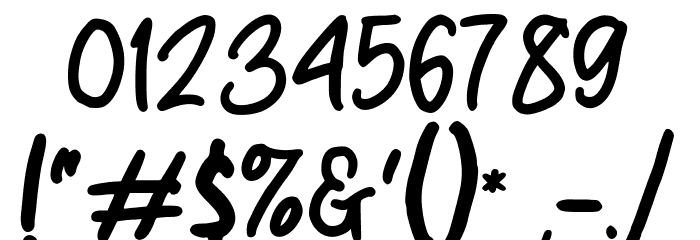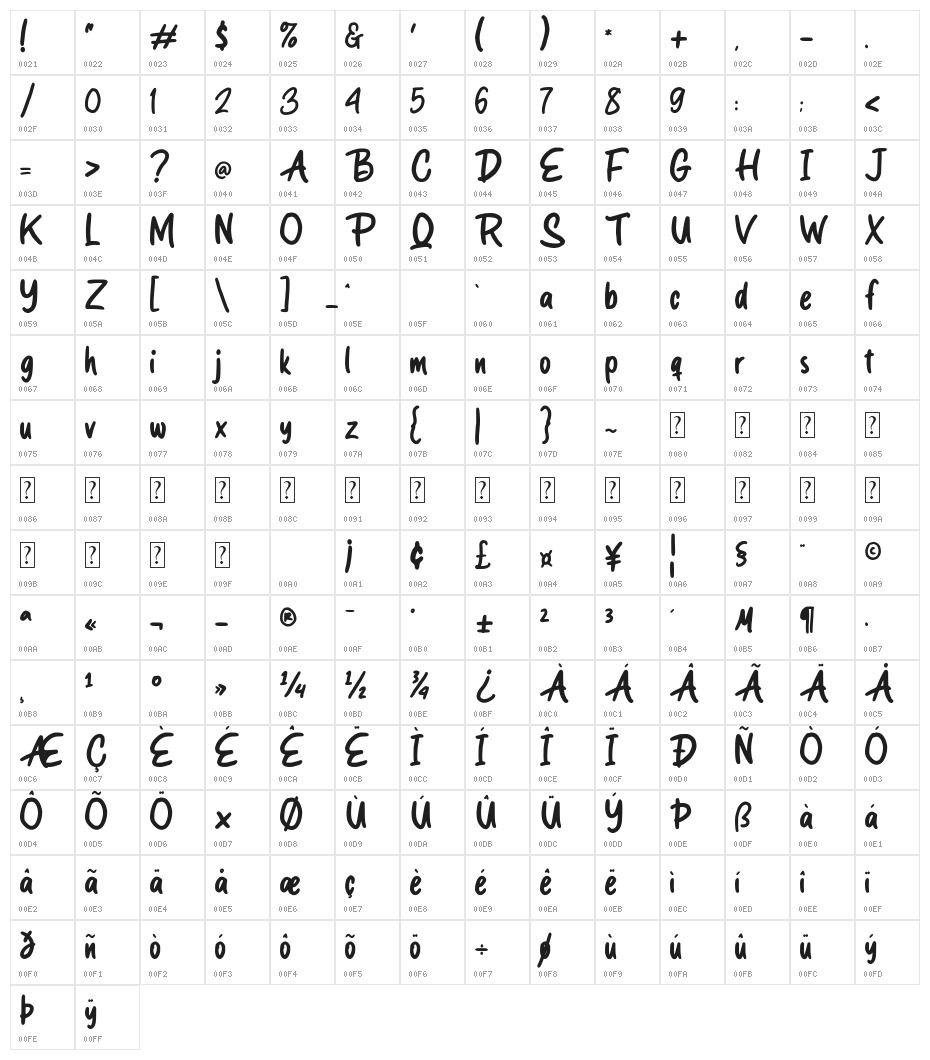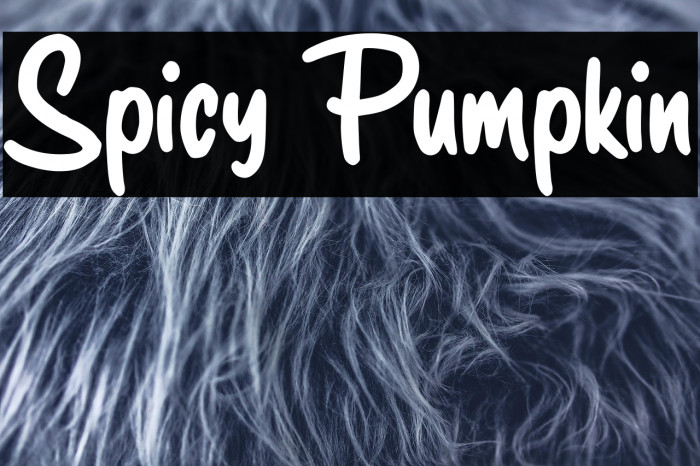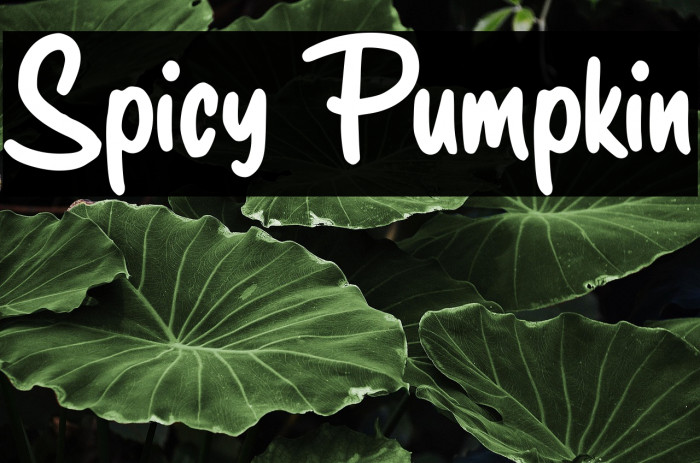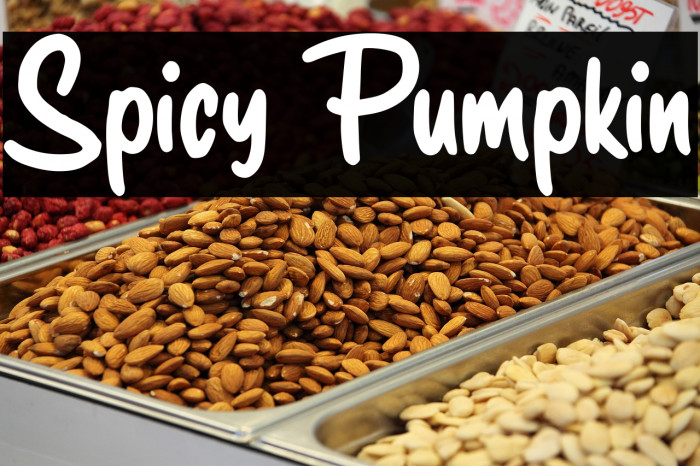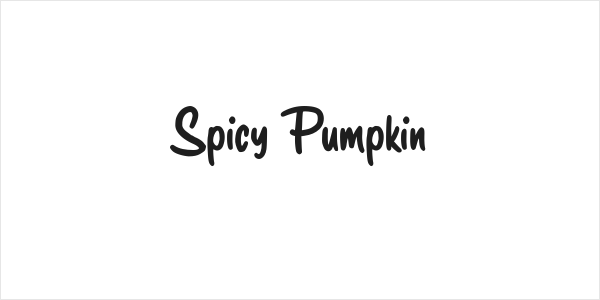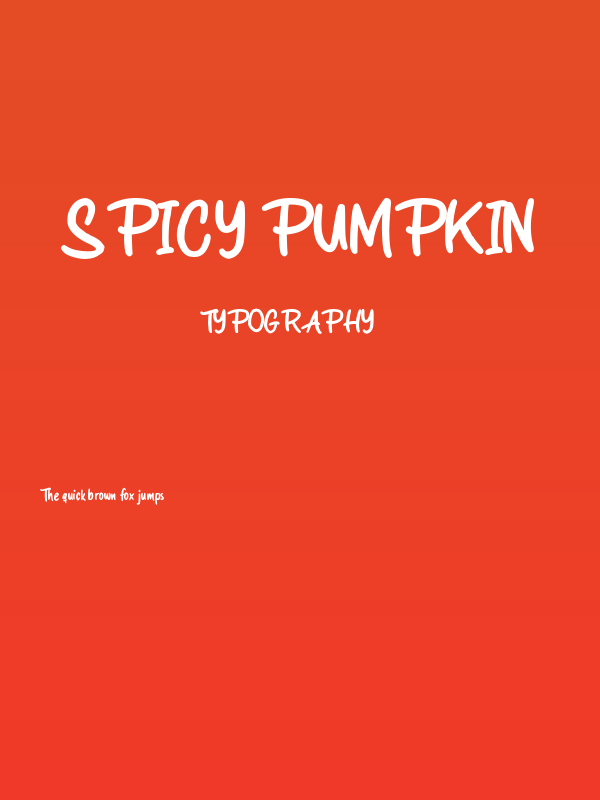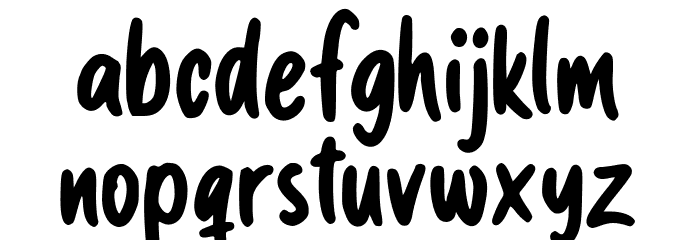
Spicy Pumpkin Font
Spicy Pumpkin Description
This font exudes a playful and energetic vibe with its bold and slightly irregular strokes. The characters are crafted with a handwritten style, giving them a casual and approachable feel. The uppercase letters are slightly larger and more pronounced, while the lowercase letters maintain a consistent flow, enhancing readability. The numbers and special characters are designed to match the overall style, ensuring a cohesive look across all text elements. This font's unique charm makes it ideal for projects that require a touch of personality and warmth.
| Proposed Projects | Perfect for greeting cards, playful branding, children's books, and social media graphics. |